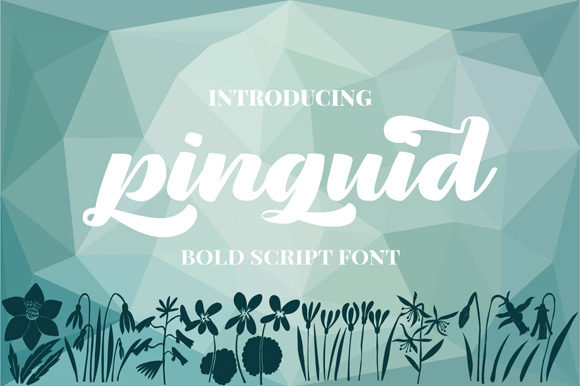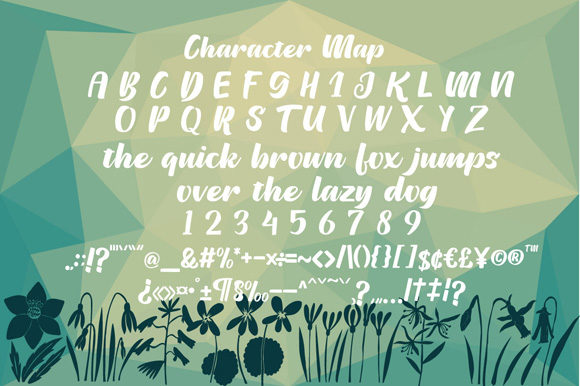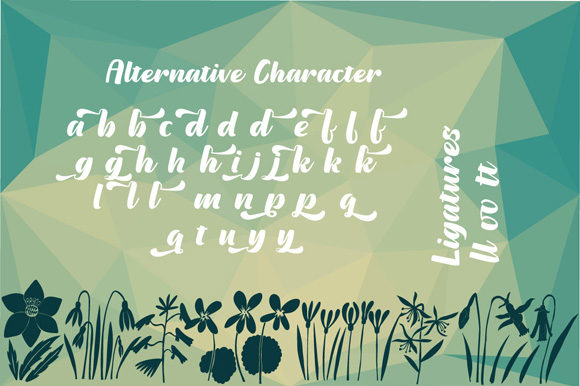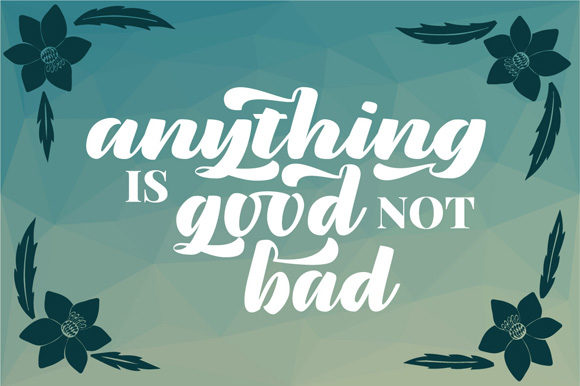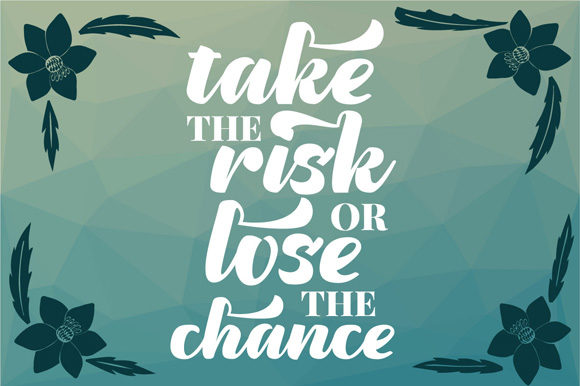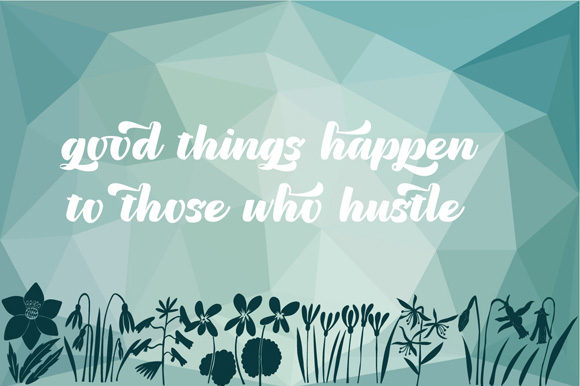
Pinguid Font
About Pinguid Font
Pinguid is a fun and bold handwritten font with lots of personality! Fall in love with its whimsical charm, and turn any design idea into a stand out.